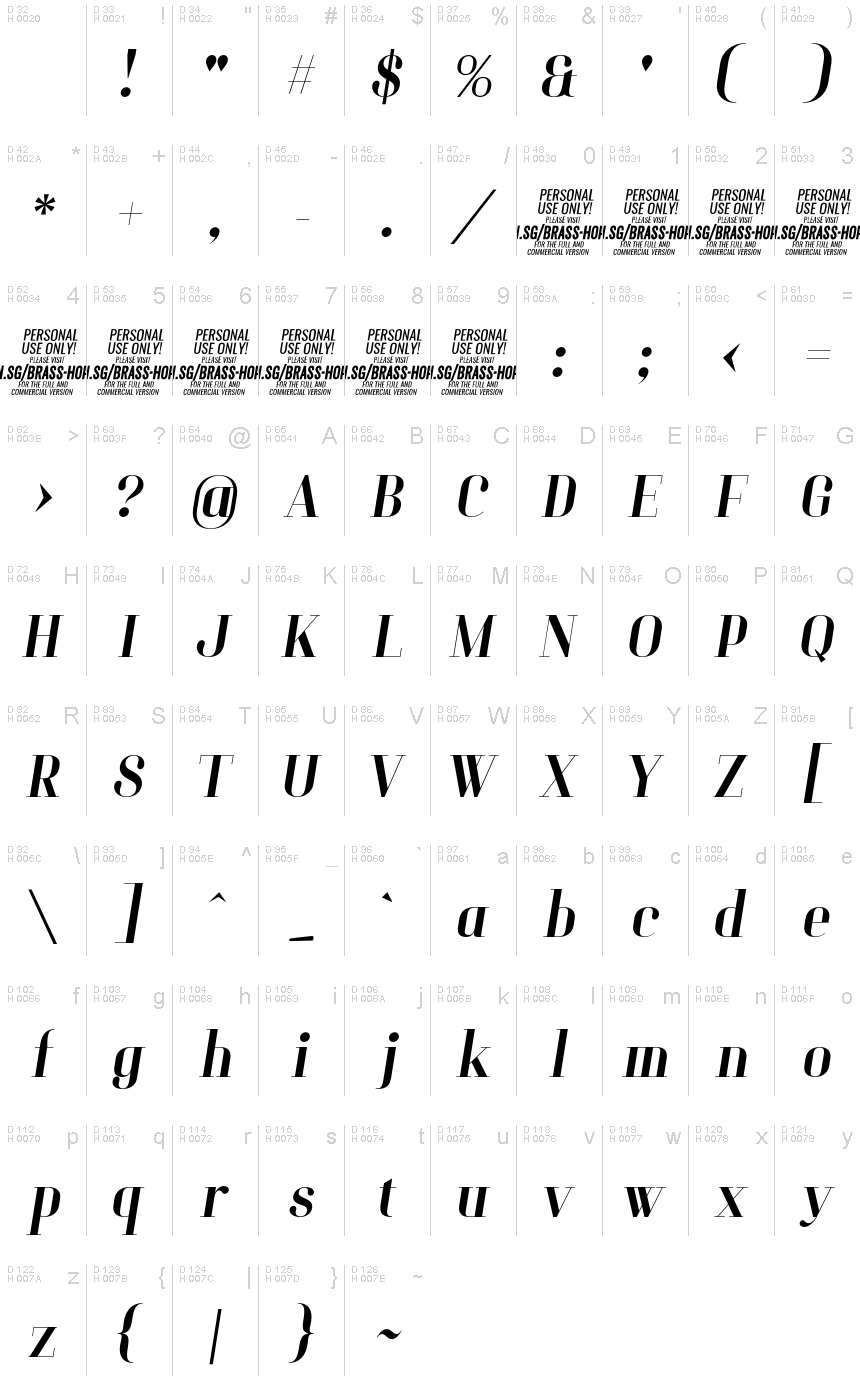
Brass Hopper Head PERSONAL Italic
Brass Hopper Head Italic font, part of the Brass Hopper Head family designed by Mans Greback, showcases an alluring blend of stability and elegance. Its distinctive serif design features strict shapes that exude professionalism and authority, making it particularly suited for art exhibitions and architectural presentations. The italic version adds a touch of dynamism, enhancing its visual appeal while maintaining a structured aesthetic.
This font's versatility shines through its ability to adapt fluidly to various contexts. Whether you're crafting sophisticated branding materials or elegant editorial layouts, Brass Hopper Head Italic delivers a range of expressive possibilities. The potential for customization within this variable font ensures that it can effortlessly align with your unique design vision, embodying both creativity and clarity in every application.